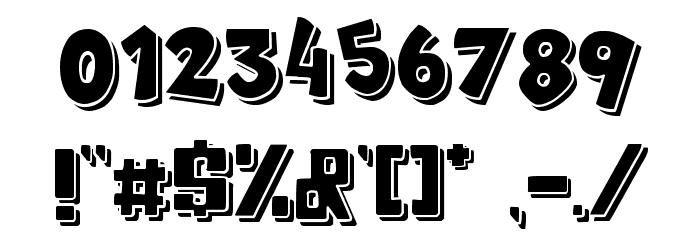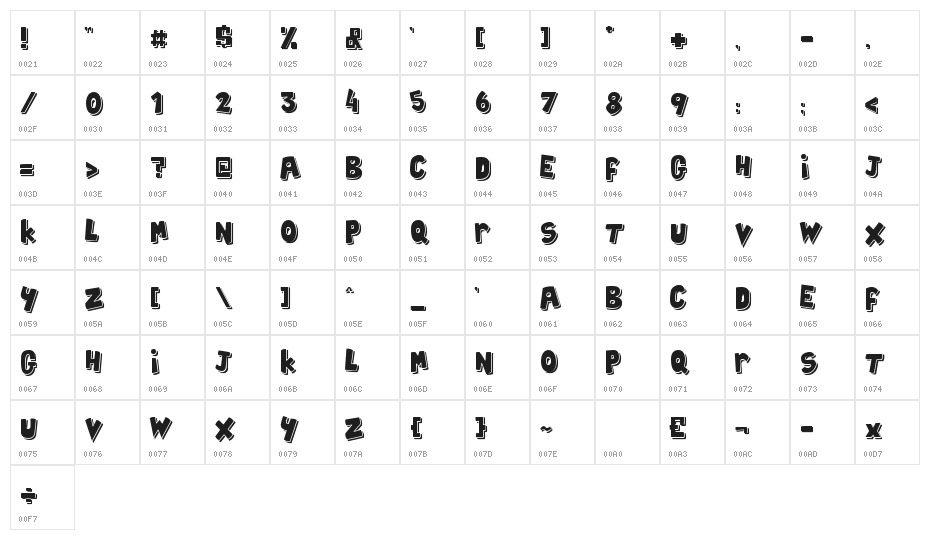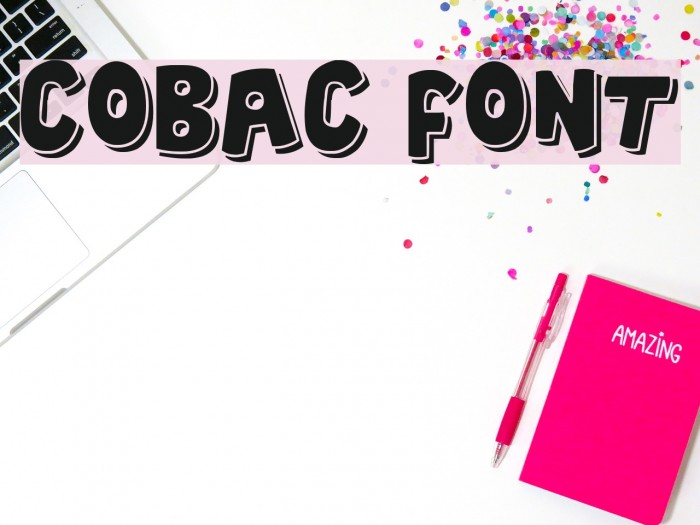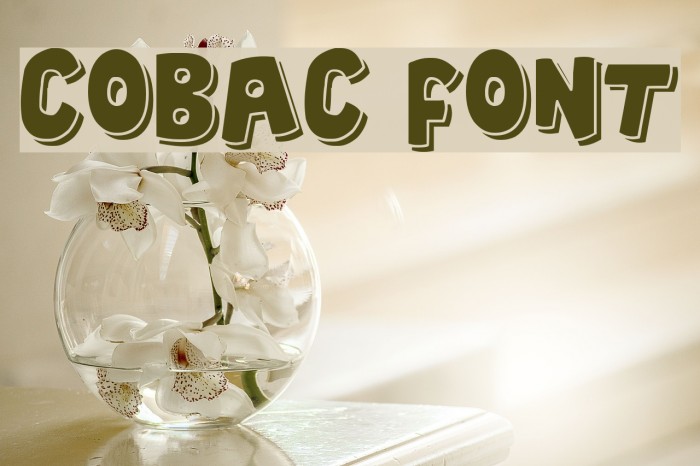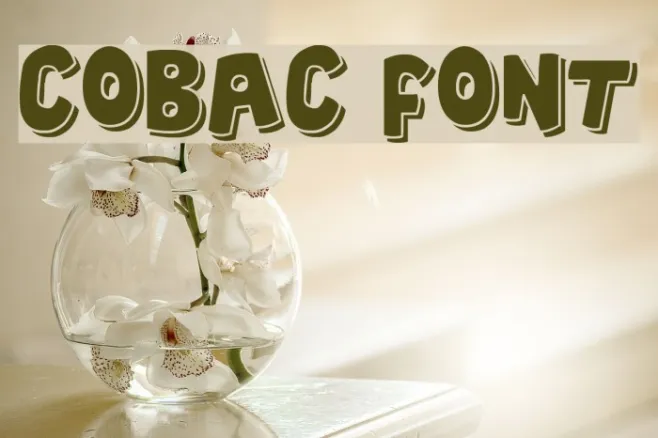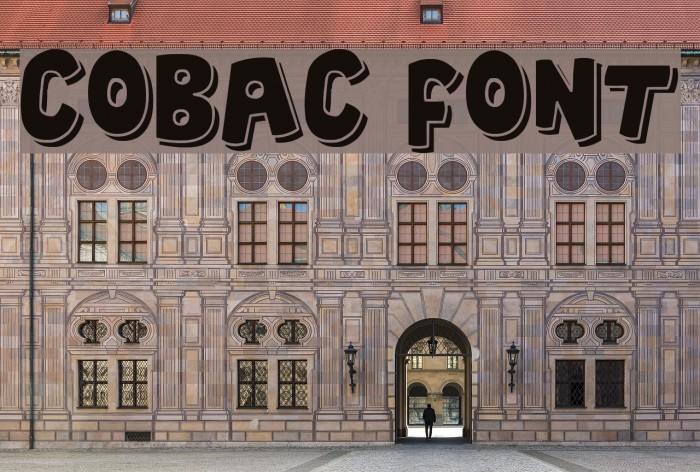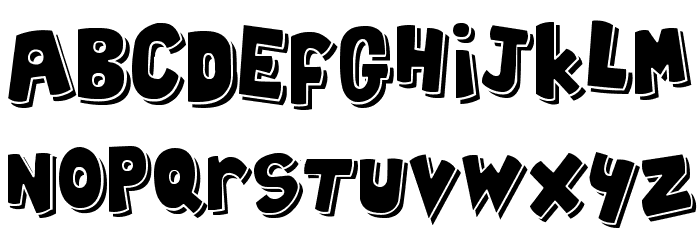
Cobac Font
Cobac Description
This font features a playful and bold design with a three-dimensional effect, achieved through a shadow that gives depth to each character. The letters are rounded and slightly irregular, adding a whimsical and informal touch. The uppercase and lowercase letters maintain a consistent style, with exaggerated curves and varying thickness that enhance its dynamic appearance. The numbers and special characters follow the same playful theme, making it suitable for creative and fun projects. Its unique style is eye-catching and memorable, perfect for drawing attention.